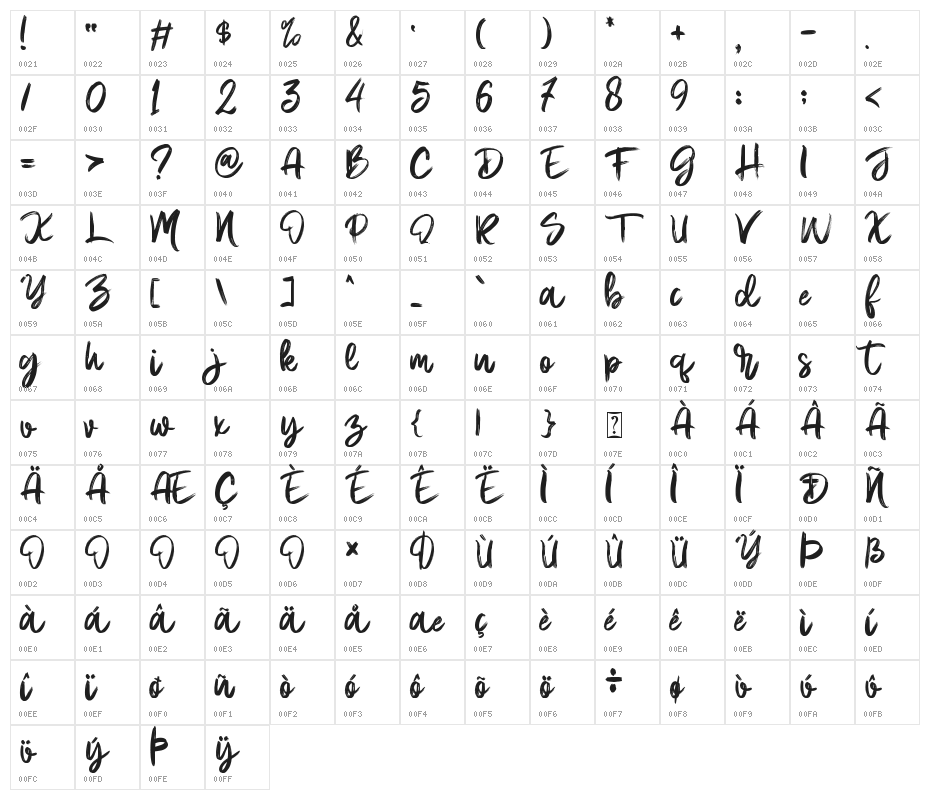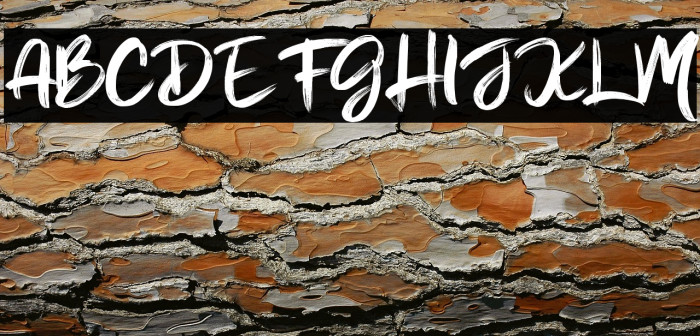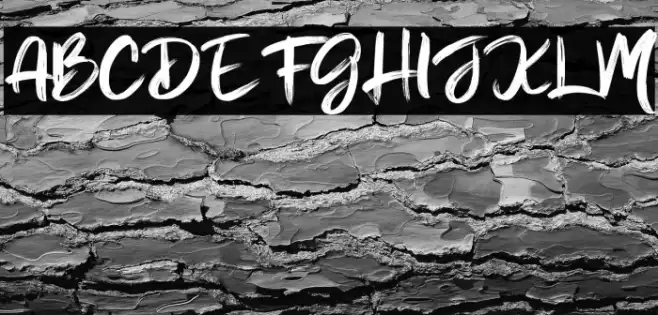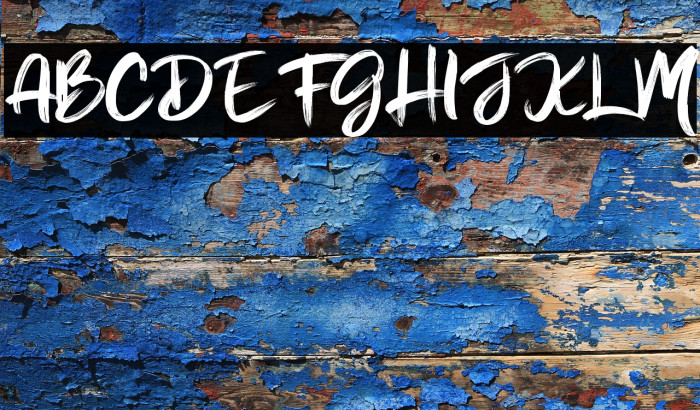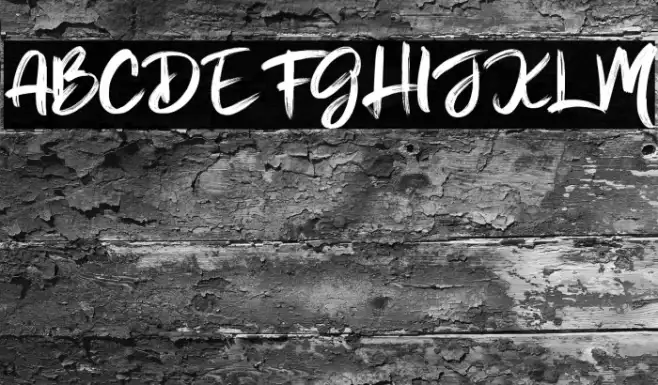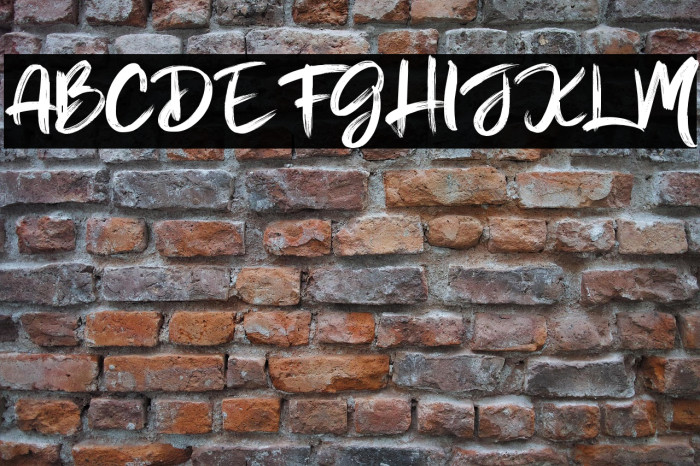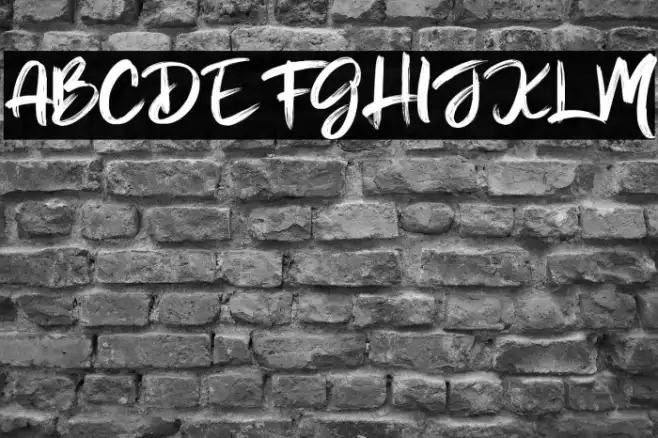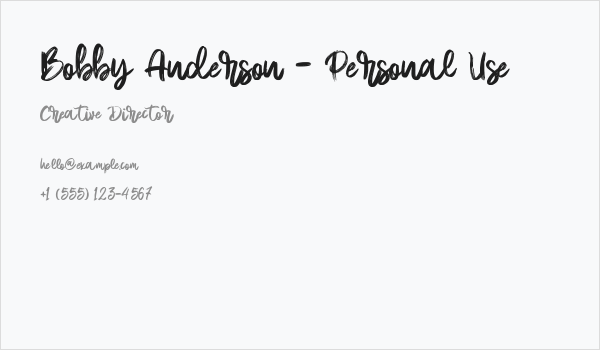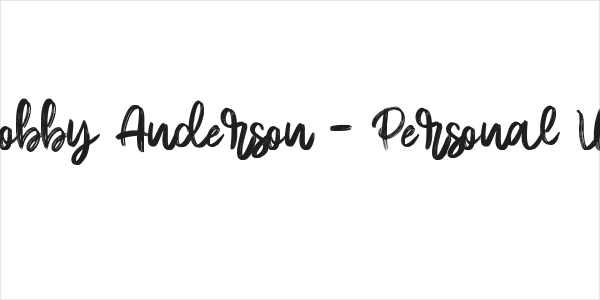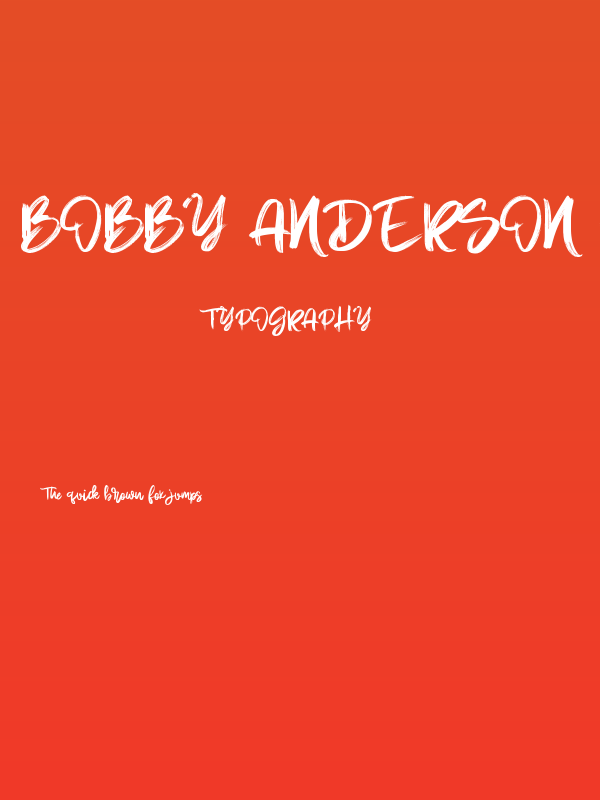
This font features a bold and expressive handwritten style, characterized by thick, brush-like strokes that convey a sense of energy and dynamism. The uppercase letters are bold and slightly condensed, while the lowercase letters maintain a fluid and connected script style. Numbers and special characters follow the same expressive brush style, making them stand out. The overall appearance is artistic and informal, suitable for projects that require a personal touch or a creative flair. The font's unique style makes it ideal for eye-catching designs.
| Proposed Projects | Ideal for creative projects such as posters, invitations, branding, and social media graphics where a personal and artistic touch is desired. |